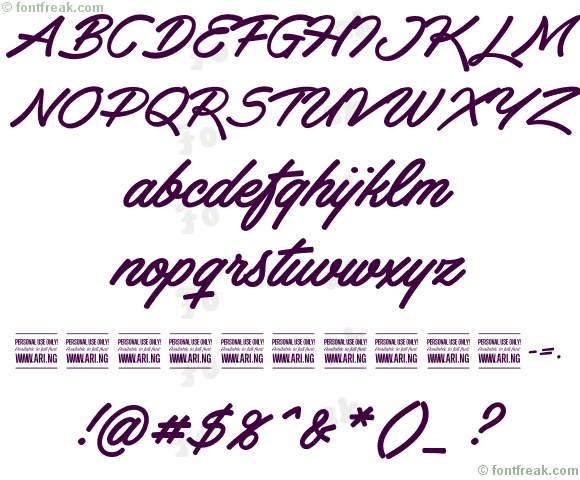
Haydon Brush PERSONAL USE
The Haydon Brush PERSONAL USE font, crafted by the talented Mans Greback, is a striking script typeface that exudes a lively and artistic flair. This font falls into the handwritten category, making it perfect for designs that require a personal touch. Its flowing strokes and cursive-like characteristics give it an elegant yet casual appeal, making it suitable for a variety of creative projects.
Visually, Haydon Brush features smooth, rounded edges with a medium stroke weight, creating a balanced contrast that enhances its legibility without sacrificing style. The letters are well-spaced, allowing for ease of reading while maintaining an organic feel. Decorative elements such as swirls and flourishes at the ends of some characters add a whimsical touch, making this font particularly engaging.
Haydon Brush is ideal for use in wedding invitations, where it can convey warmth and intimacy. It also shines in designing restaurant menus, lending an inviting atmosphere to dining experiences. Additionally, this font works wonderfully for movie posters, capturing attention with its dynamic style. For content creators and social media posts, it can elevate captions and graphics, making them more visually appealing.
The target audience for this font includes graphic designers, small business owners, and content creators looking for a unique typeface that stands out. Whether you are crafting a brand identity or designing personal greetings, Haydon Brush offers versatility and charm.